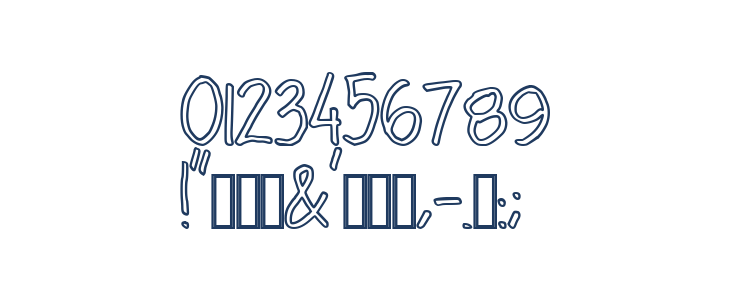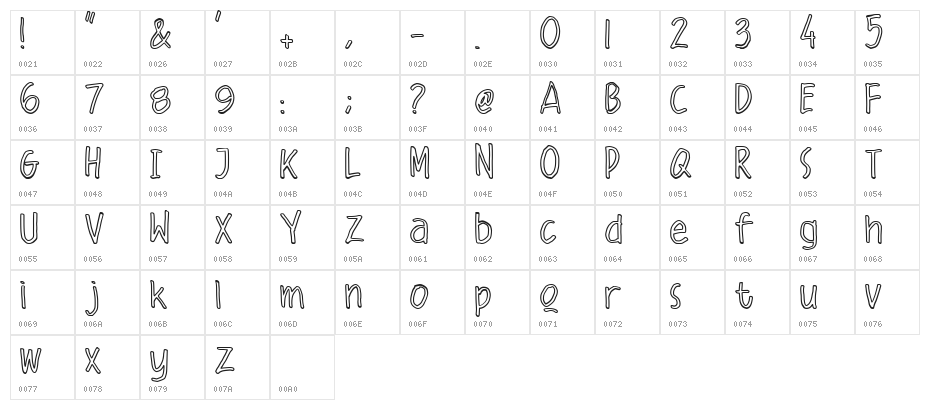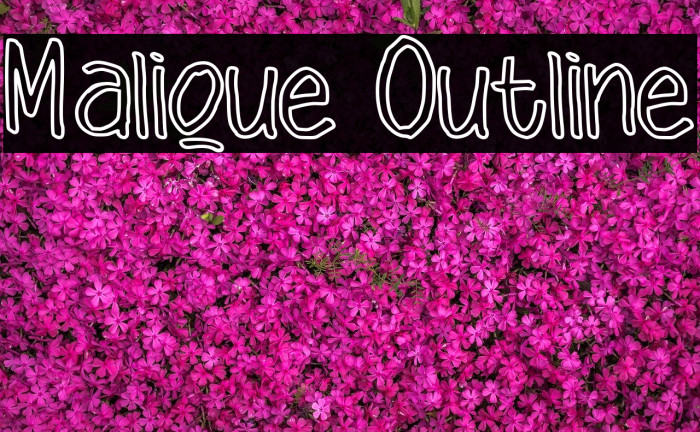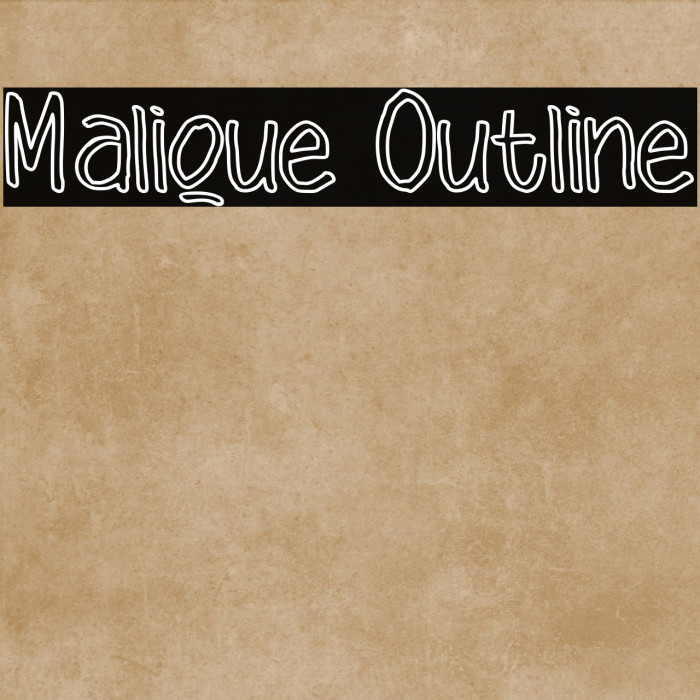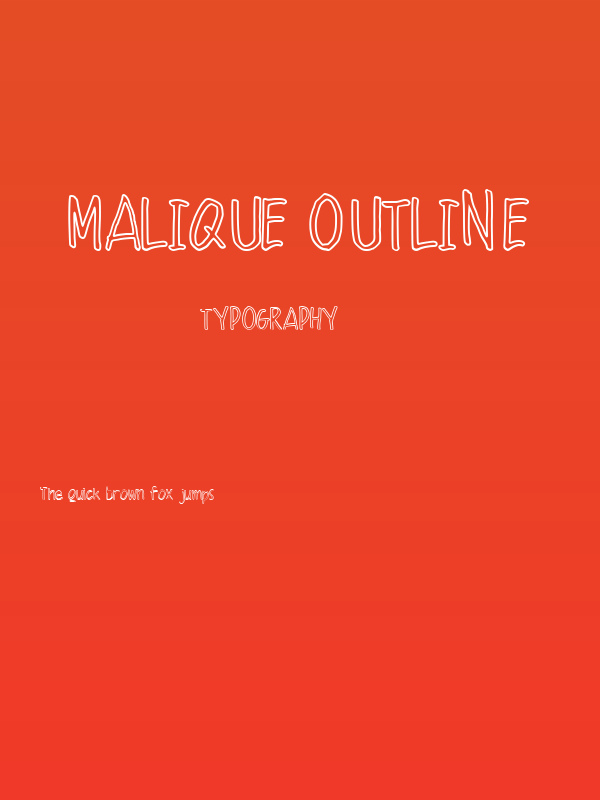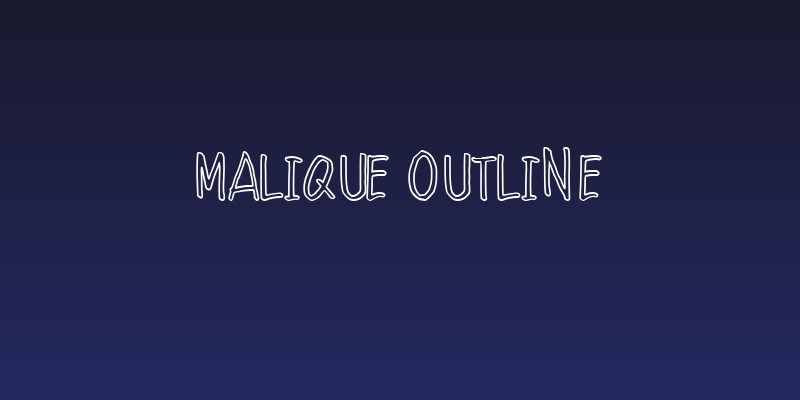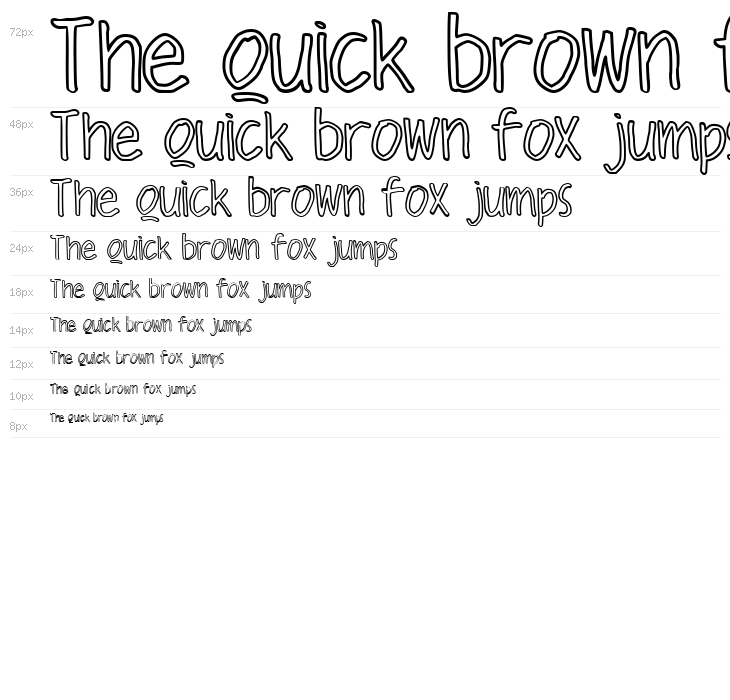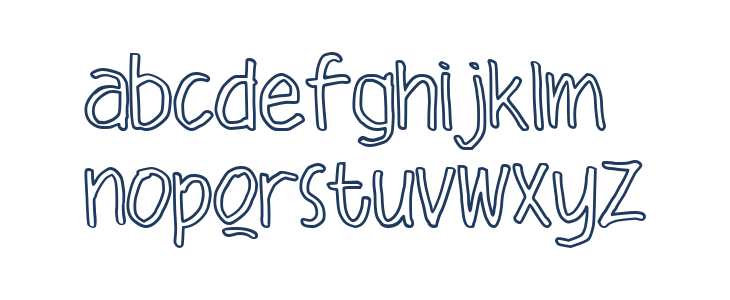
Malique Outline Font
Malique Outline Description
This playful and whimsical font features an outline style that gives it a unique and eye-catching appearance. The characters are hand-drawn, with a casual and informal feel, making it perfect for creative projects. The uppercase and lowercase letters maintain a consistent style, with rounded edges and a slightly irregular shape that adds to its charm. The numbers and special characters follow the same design principles, ensuring a cohesive look across all elements. This font is ideal for projects that require a fun and approachable aesthetic.
| Overall Style | Whimsical |
| Proposed Projects | Ideal for children's books, greeting cards, playful branding, and creative posters. |